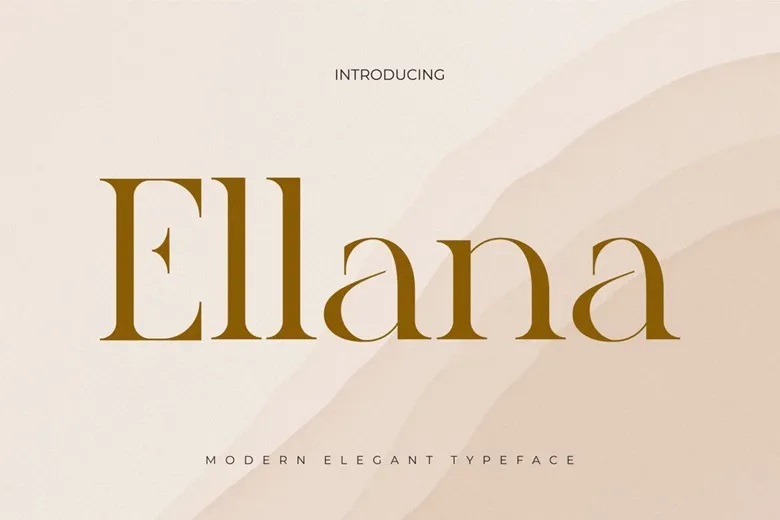
Ellana Font
Ellana features beautifully across various fashion branding, jewelry packaging, cosmetic labels, editorial layouts and luxury product presentations. Therefore, this font becomes the ideal solution if the designers aspire for elegance with some real design flexibility. Ellana is a modern, beautiful serif typeface designed to showcase clarity, luxury and a polished visual balance.
From the first look, it feels exclusive and polished. Use it in jewelry packaging, fashion branding, cosmetic labels, luxury product presentations, and editorial layouts. For creatives looking for elegance paired with real creative versatility, this font offers a dependable and sophisticated typographic solution.
Ellana Serif Font